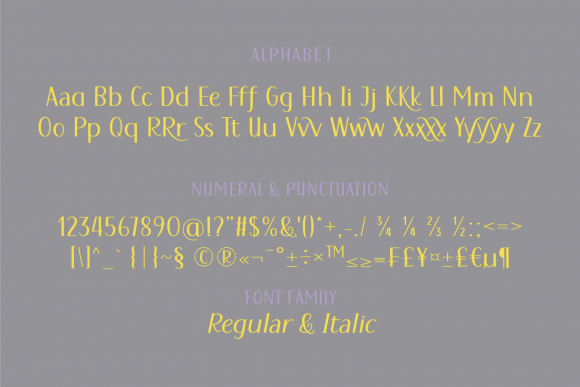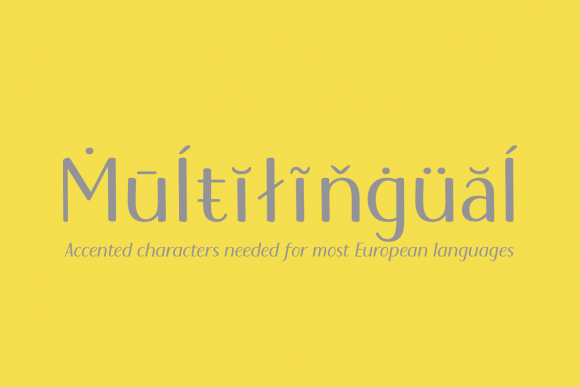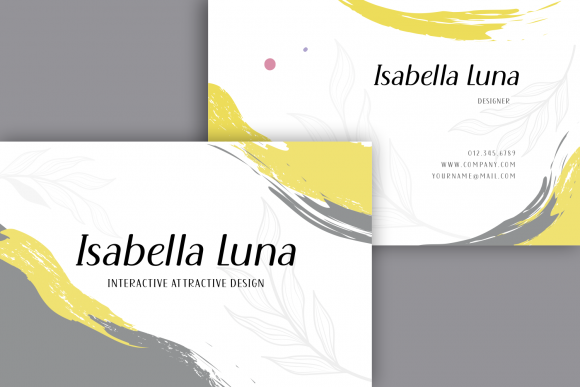
Introduction to Kettya Font
Kettya is a simple and cute handwritten font with a beautiful rhythm.
This font includes an Italics version that makes it truly versatile and authentic to use .
Key Features of Kettya Font